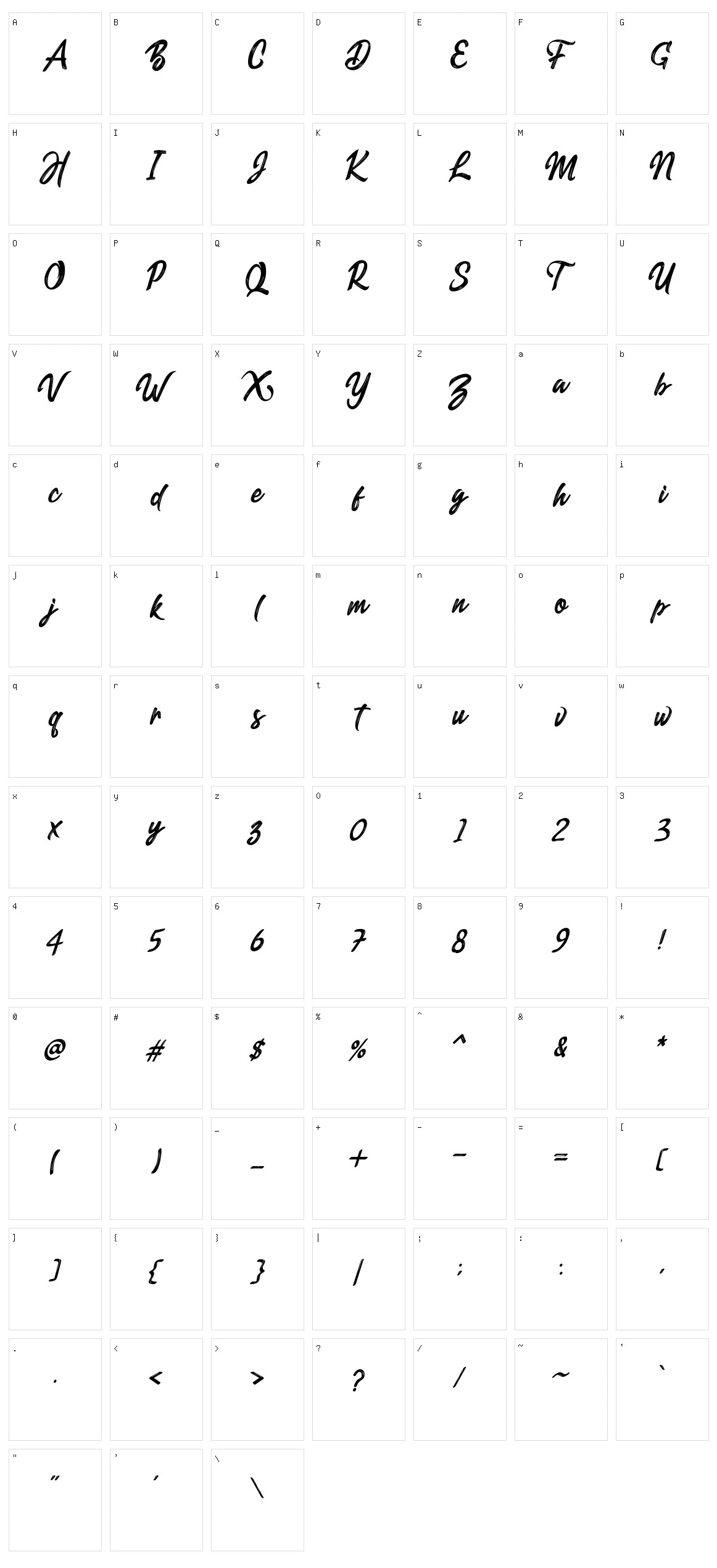
The free font Dexaters Sillent is carefully designed by Sudarman Mulka, showcasing a thoughtful balance of creativity and usability and falls under the Script font style. When you download the ZIP file, it contains only 57.89 KB of font files, making it lightweight and quick to download. Please review the license details below to understand permitted usage and distribution rights. If license information is not available, we recommend using this font for personal projects only or contacting the author directly for commercial usage permissions.